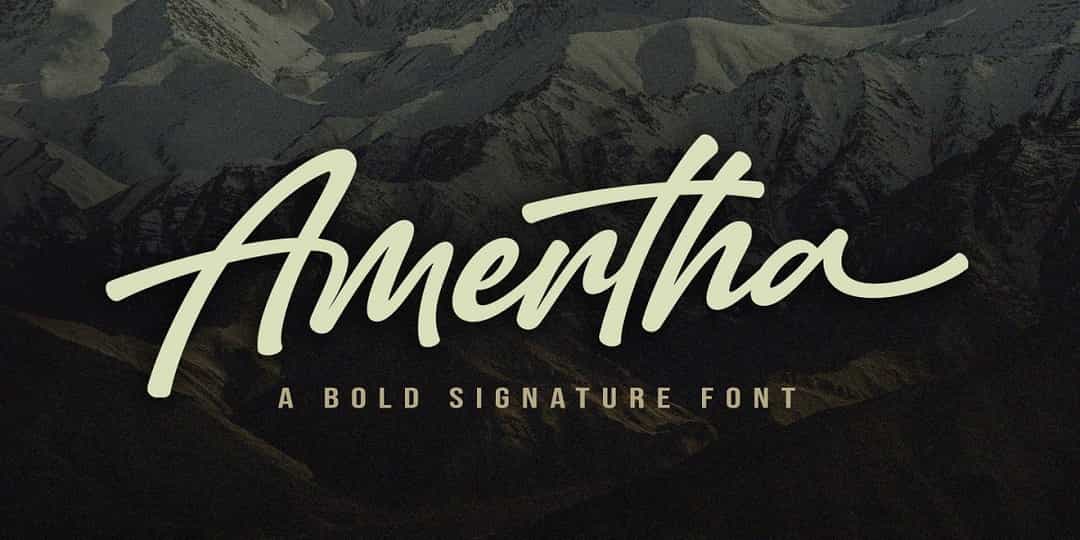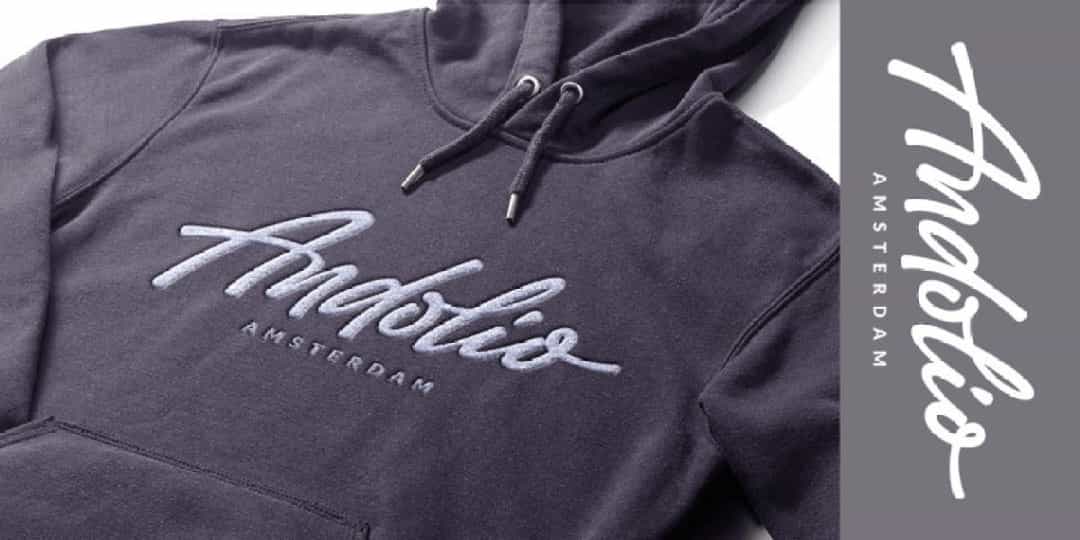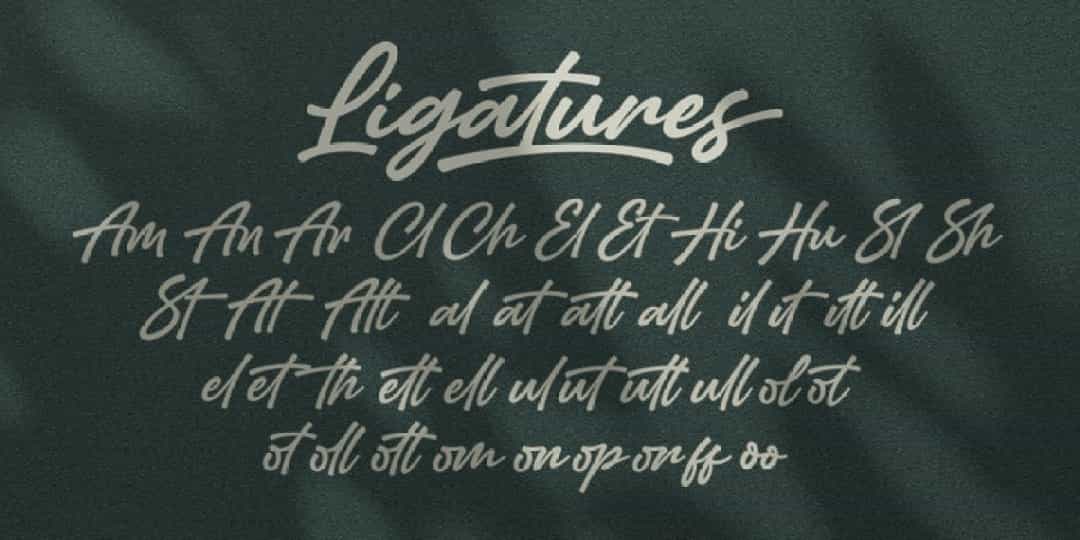
Amertha is a beautiful stout font in the script style that is perfect for logos. It is characterized by swift and uncontrolled brush work and the letters exhibit movement that is captivating to the eye. Some of the Open Type features included are the Ligatures and an alternative alphabet which makes Amertha versatile for use in many projects.